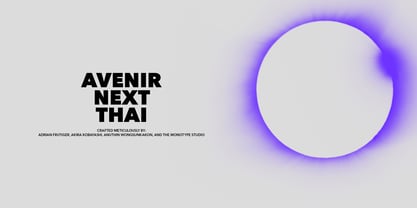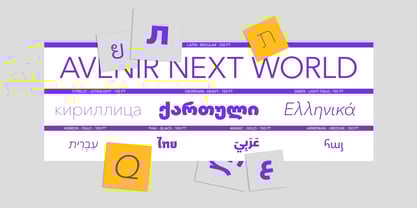
Avenir Next Thai
Avenir® Next Thai
by Linotype
Avenir Next Thai Font Family was designed by Adrian Frutiger, Akira Kobayashi, Anuthin Wongsunkakon and published by Linotype. Avenir Next Thai contains 20 styles family package options.
About the family
Avenir Next Pro is a new take on a classic face—it’s the result of a project whose goal was to take a beautifully designed sans and update it so that its technical standards surpass the status quo, leaving us with a truly superior sans family.
This family is not only an update though; in fact it is the expansion of the original concept that takes the Avenir Next design to the next level. In addition to the standard styles ranging from ultralight to heavy, this 32-font collection offers condensed faces that rival any other sans on the market in on and off—screen readability at any size alongside heavy weights that would make excellent display faces in their own right and have the ability to pair well with so many contemporary serif body types. Overall, the family’s design is clean, straightforward and works brilliantly for blocks of copy and headlines alike.
Akira Kobayashi worked alongside Avenir’s esteemed creator Adrian Frutiger to bring Avenir Next Pro to life. It was Akira’s ability to bring his own finesse and ideas for expansion into the project while remaining true to Frutiger’s original intent, that makes this not just a modern typeface, but one ahead of its time.
Avenir Next Variables are font files which are featuring two axis, weight and width. They have a preset instance from UltraLight to Heavy and Condensed to Roman width.
The preset instances are: Condensed UltraLight, Condensed UltraLight Italic, Condensed Thin, Condensed Thin Italic, Condensed Light, Condensed Light Italic, Condensed, Condensed Italic, Condensed Demi, Condensed Demi Italic, Condensed Medium, Condensed Medium Italic, Condensed Bold, Condensed Bold Italic, Condensed Heavy, Condensed Heavy Italic, UltraLight, UltraLight Italic, Thin, Thin Italic, Light, Light Italic, Regular, Italic, Demi, Demi Italic, Medium, Medium Italic, Bold, Bold Italic, Heavy, Heavy Italic.
Designers: Adrian Frutiger, Akira Kobayashi, Anuthin Wongsunkakon